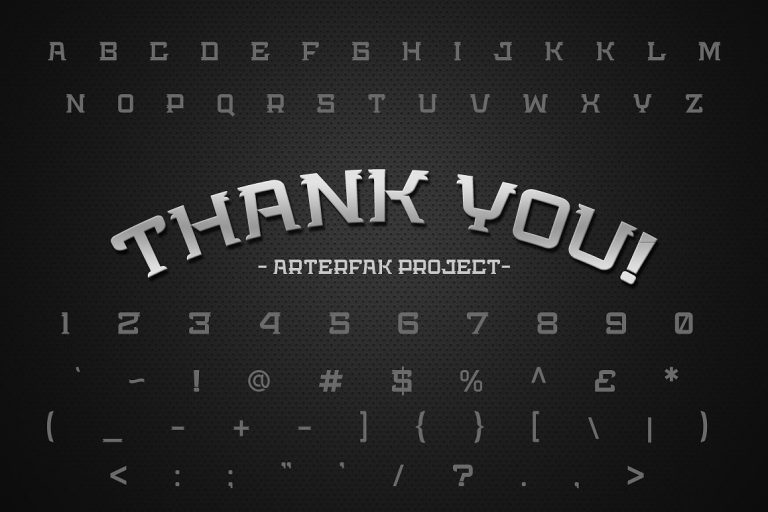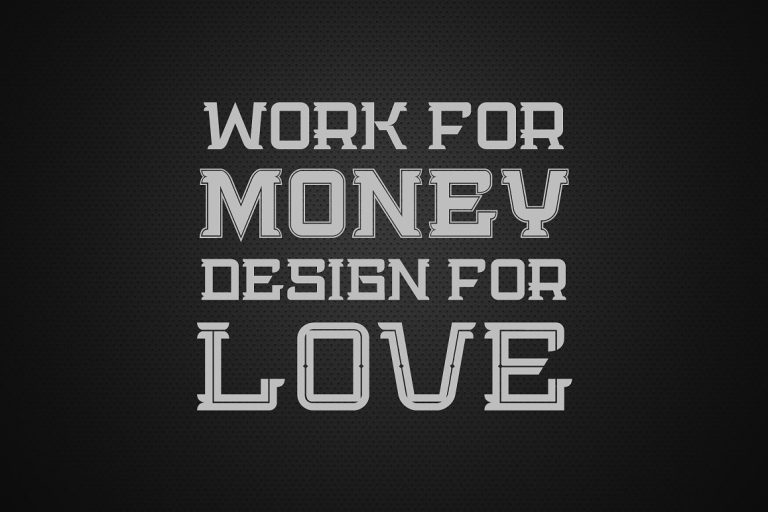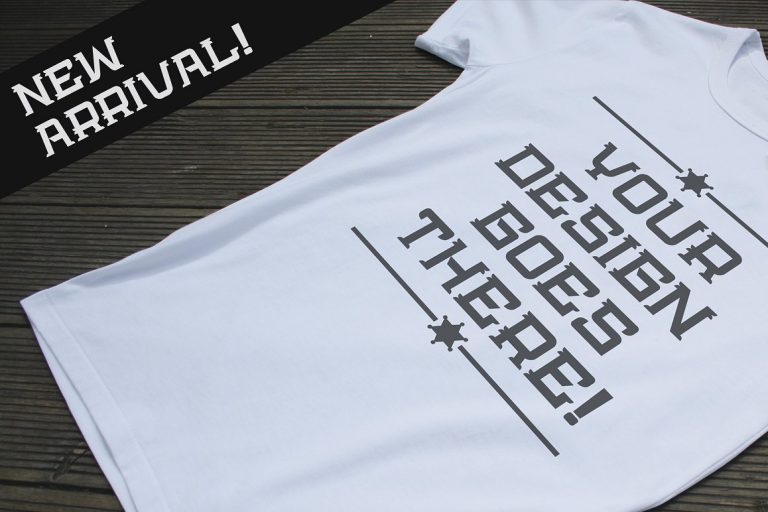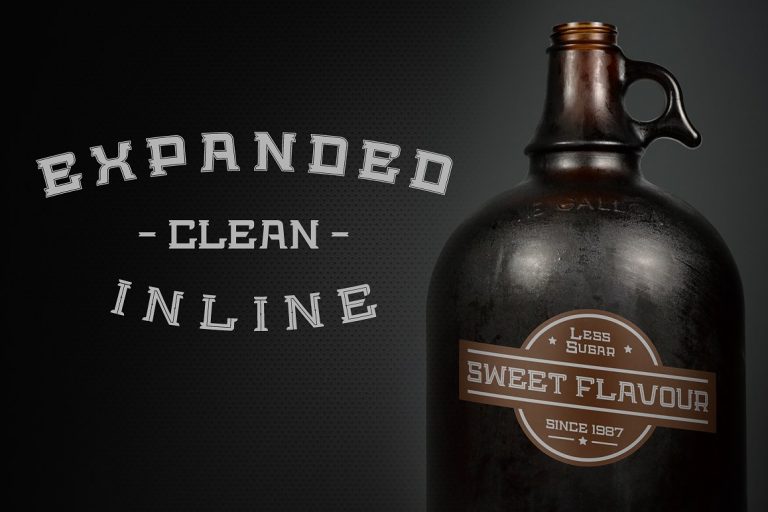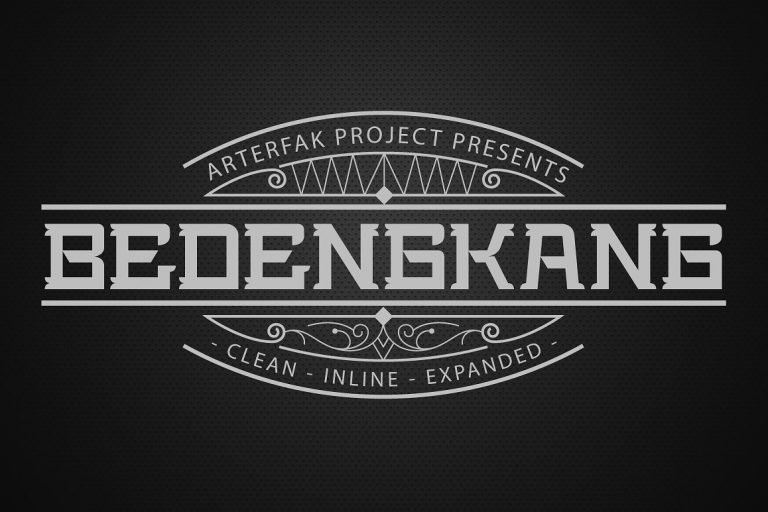
Bedengkang Typeface
Bedengkang Typeface – Free Demo
Start the day with a display font. I think it would be great if you use it for logos design. Introducing Bedengkang Font. It is designed by Arterfak Project. “Bedengkang” the elegance slab serif, available in three style : Clean – Inline – Expanded. Designed specifically to maximize your products and design projects.